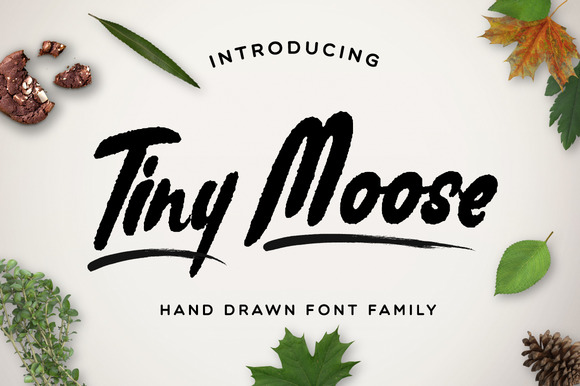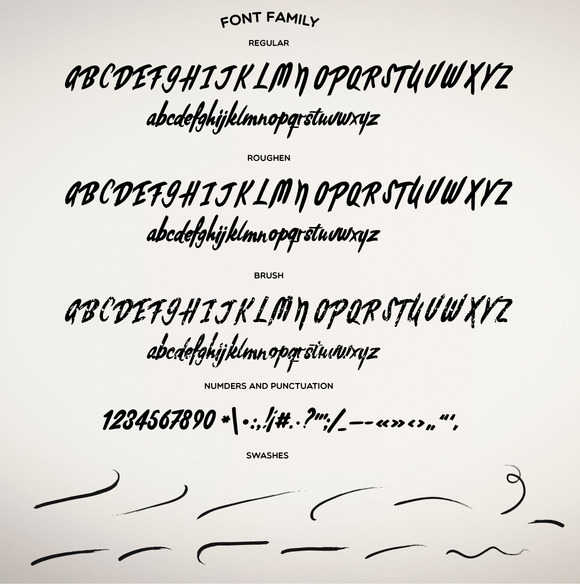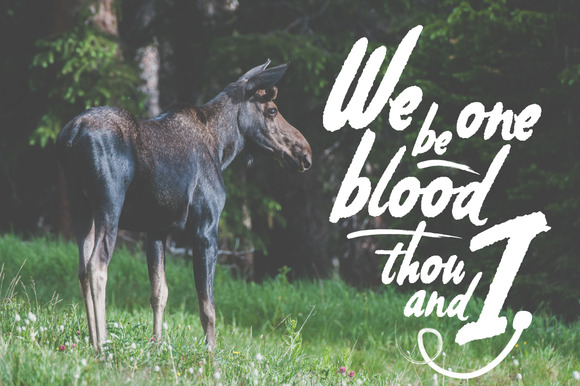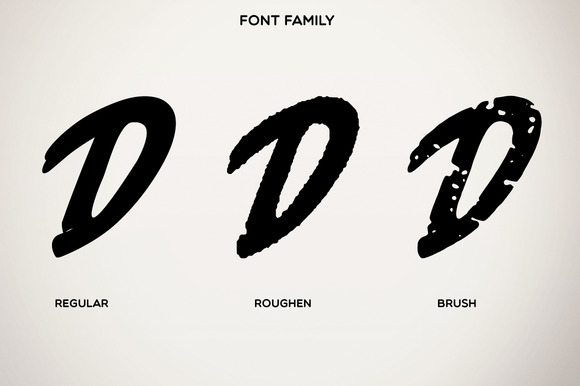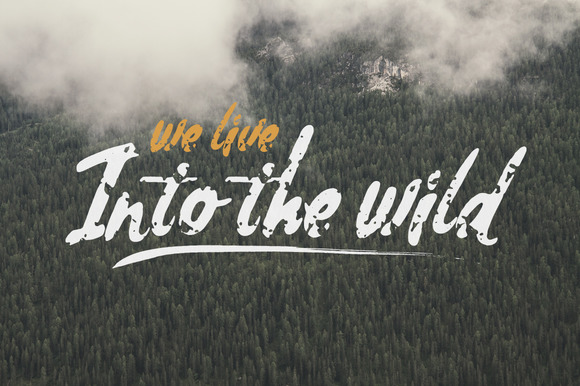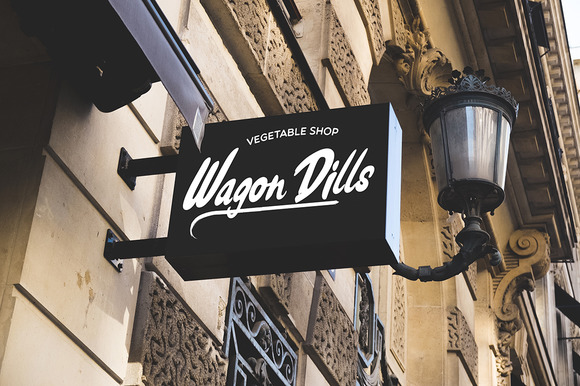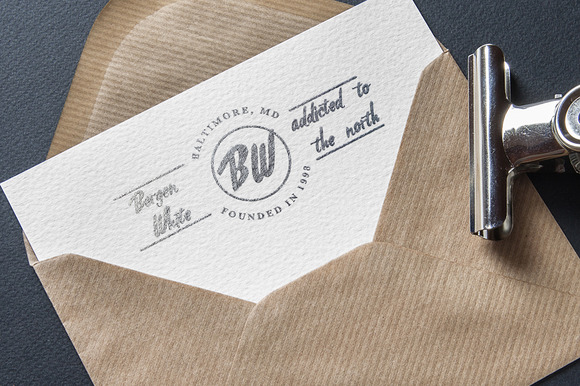
Tiny Moose
Tiny Moose Font Family
This fonts created by hand, inspired by the animals, forest and nature. Fonts are perfect for any situation. With their help, you can create a logo or a postcard to a friend. Make the inscription on the poster or an invitation to a party.